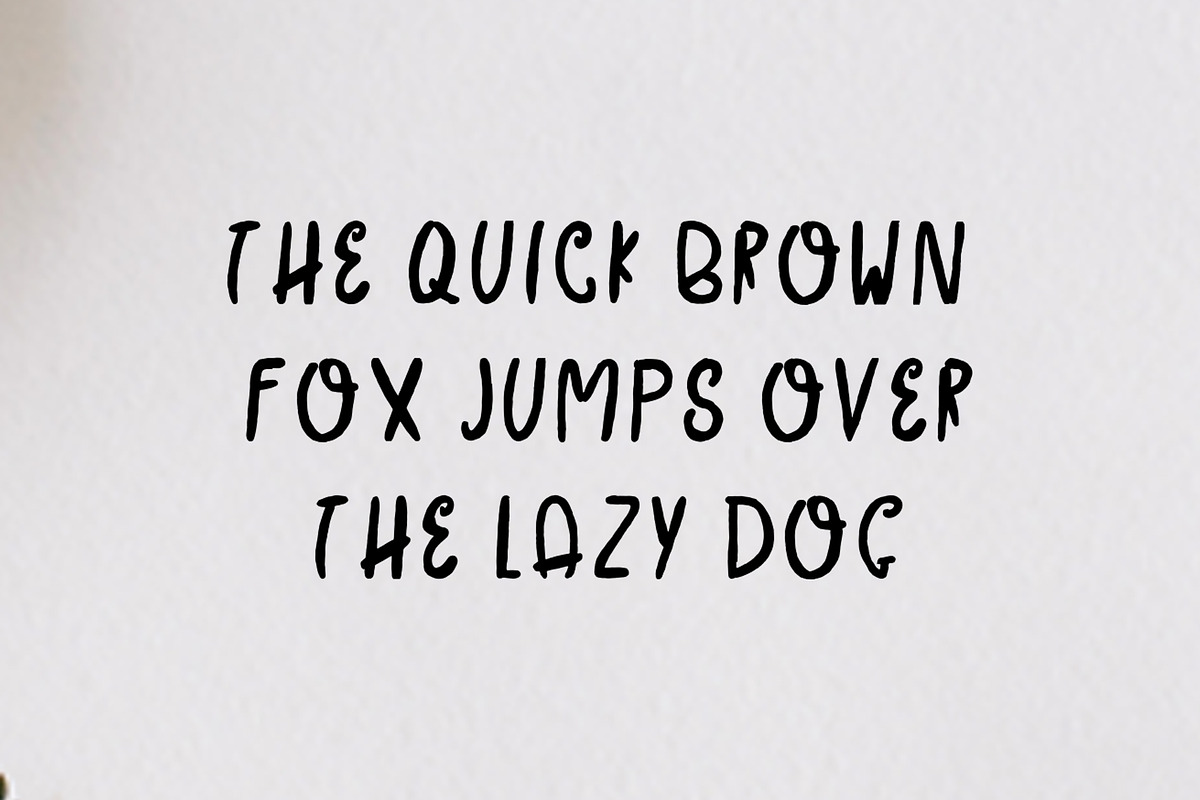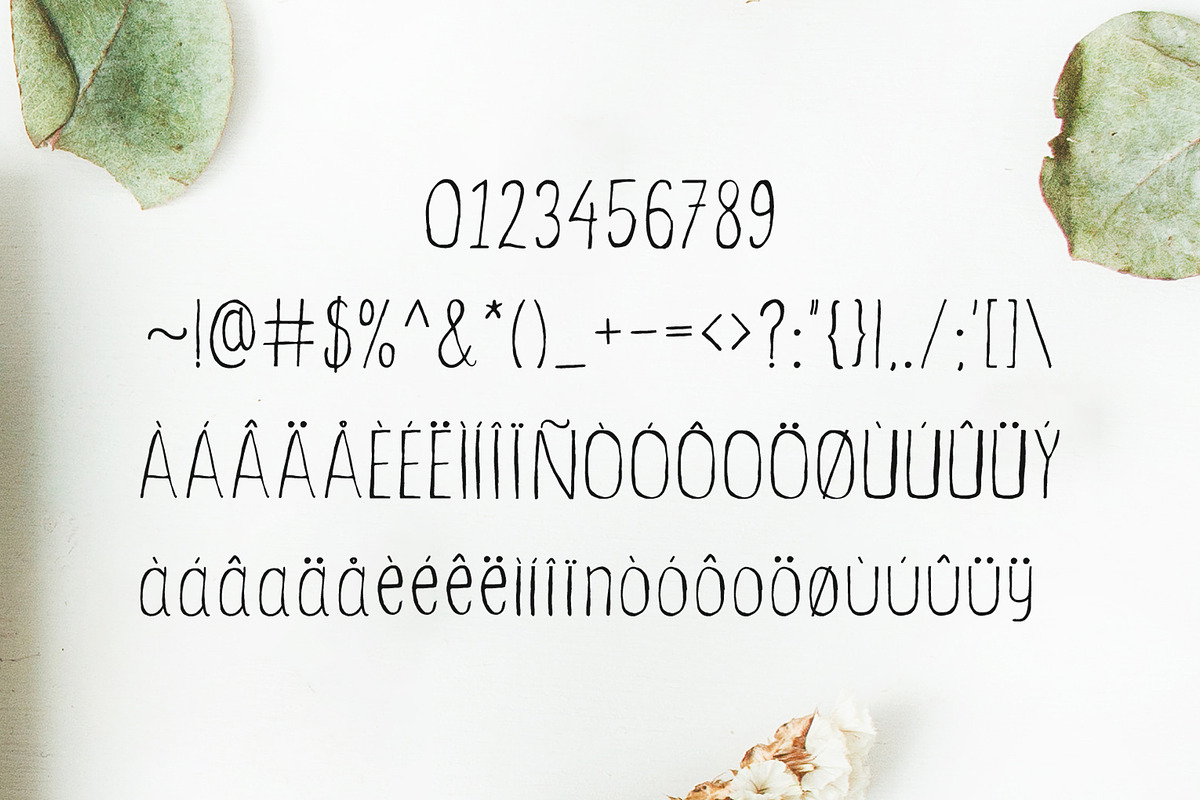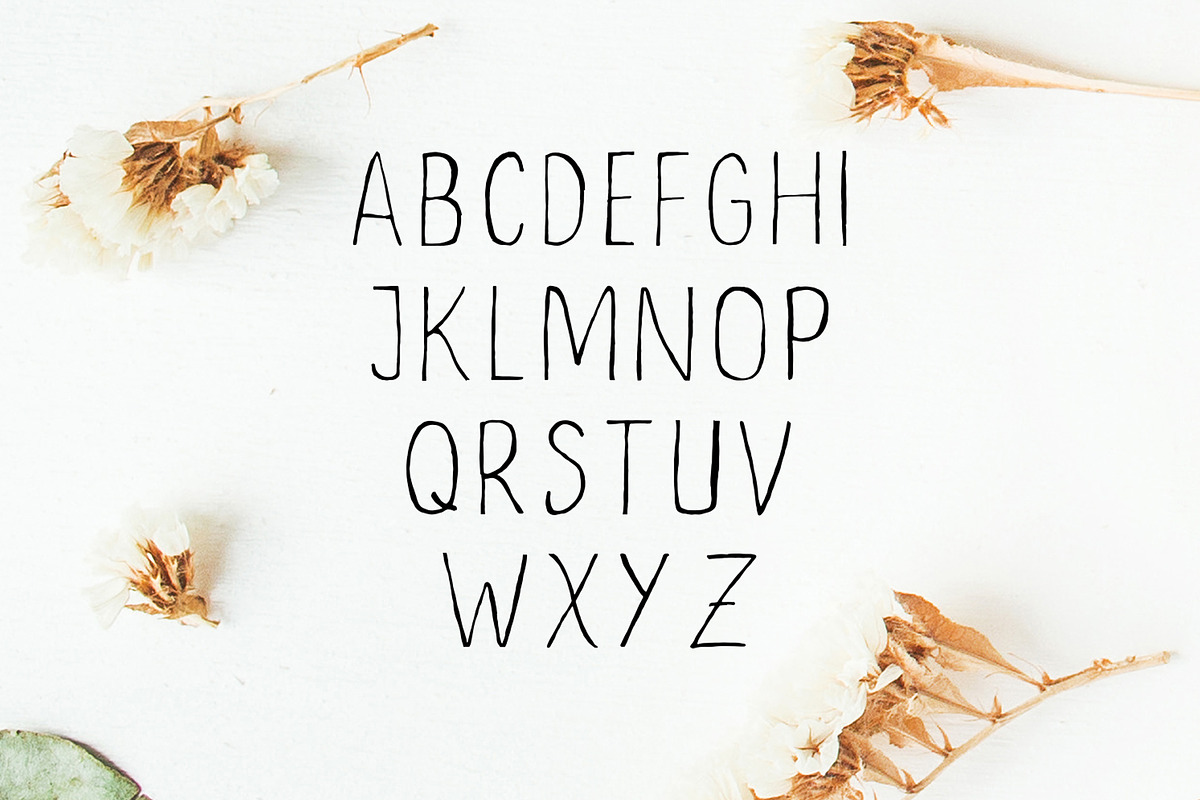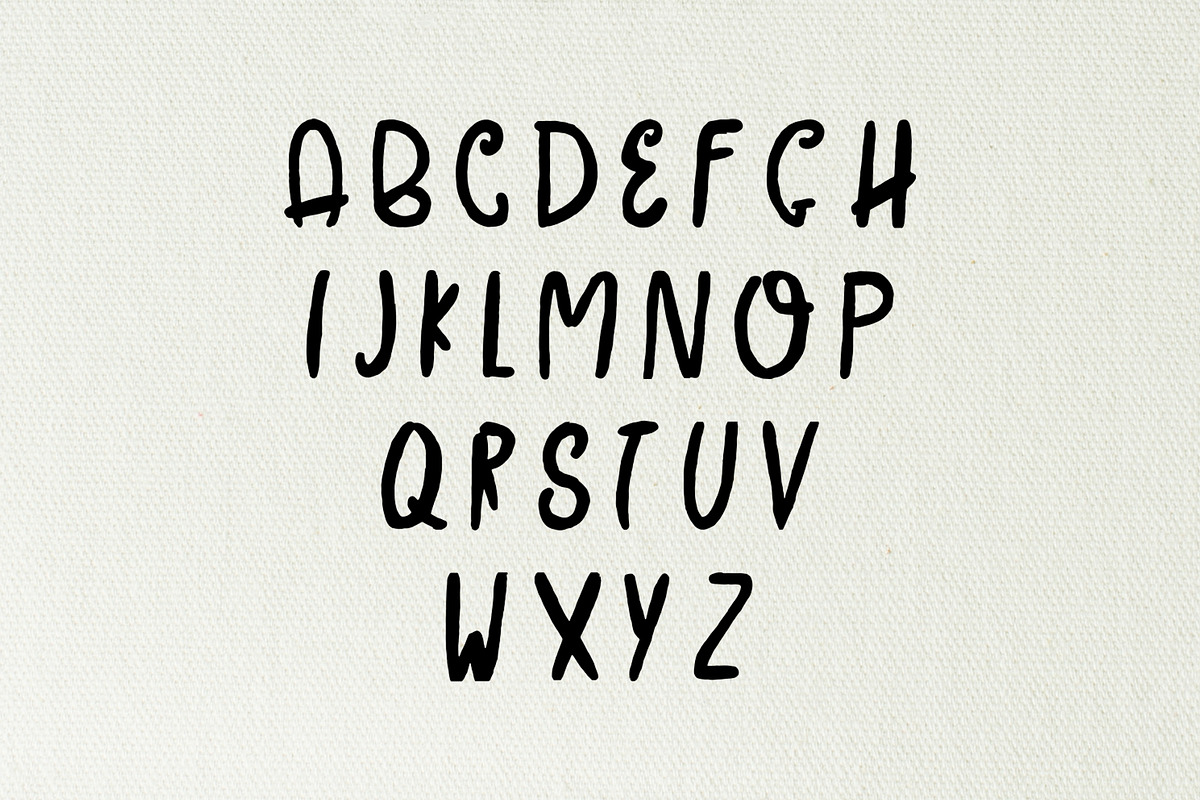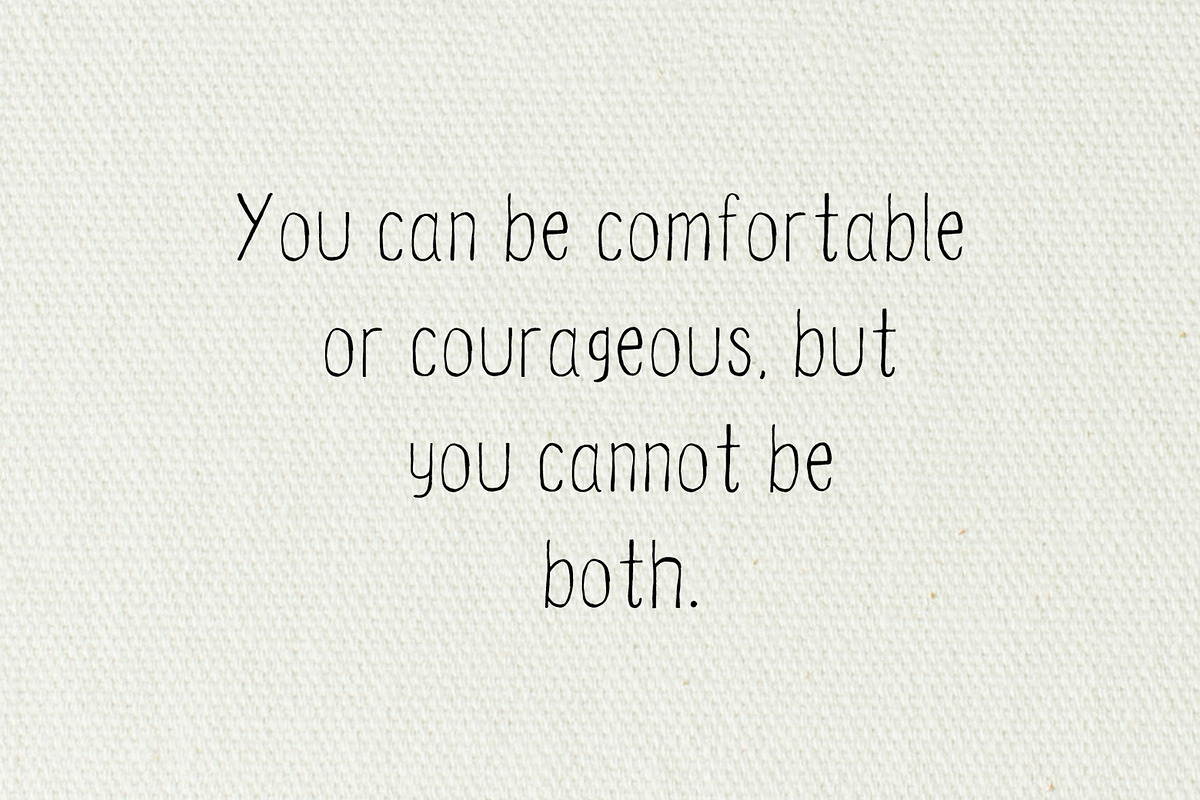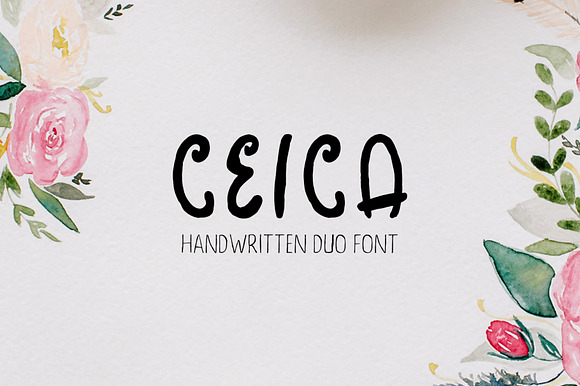
Ceica Handwritten Duo Font + Bonus
Ceica Handwritten Duo Font is a dual handmade brush script font containing uppercase, lowercase characters, numerals, punctuations and alternatives. These fonts look amazing in all caps with a wide-set spacing if you want to try a classy look, or beautiful on its own in capital and lowercase letters for something completely timeless. Ideal for designing handwritten quotes, branding & logo projects, merchandise, social media posts, displays, headers, invitations, save the dates, weddings, titles, product packaging, etc.
Font Weight: Regular and Outline